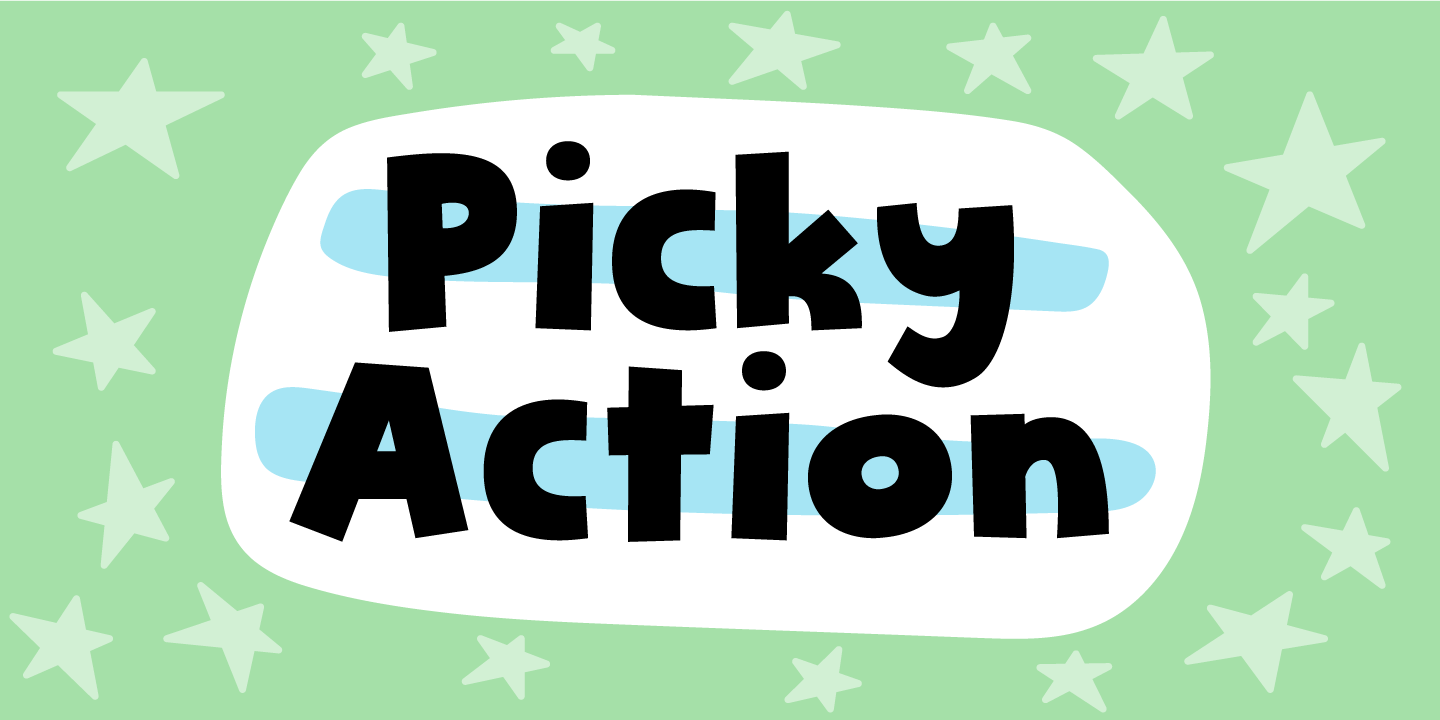
Picky Action Font is perfect for action movie titles, sports team branding, gaming graphics, comic book covers, extreme sports marketing, adventure tourism promotions, fitness brand identities, dynamic poster designs, competitive event materials, and high-energy advertising campaigns. This powerful typeface excels in applications where speed, intensity, and adrenaline-fueled action need to be communicated with bold impact and unstoppable momentum that captures attention instantly.
What makes Picky Action Font exciting is its remarkable ability to convey explosive energy and dynamic movement through its aggressive letterforms that seem to leap off the page with kinetic force. The font embodies the spirit of action-packed adventures and competitive determination with its sharp angles and powerful construction that radiates confidence and unstoppable drive. Its meticulously crafted character details and high-impact proportions create an atmosphere of intense excitement that resonates with audiences seeking thrilling experiences and peak performance challenges.
The Picky Action Font family typically includes Regular, Bold, and Black weights, each maintaining the signature aggressive energy and dynamic characteristics. Some versions offer Italic variants with enhanced motion effects and condensed styles that amplify the speed aesthetic. The family may also include outline treatments, shadow effects, and special distressed versions that enhance the action-packed appeal for maximum visual impact in sports and entertainment applications.
Whether you're creating high-octane brand identities, action-packed entertainment materials, or competitive sports graphics, Picky Action Font Free Download delivers the explosive energy your dynamic projects demand. Its aggressive character and powerful styling make it an invaluable tool for designers working in sports, gaming, and action entertainment sectors where authentic intensity and competitive spirit are essential for connecting with adrenaline-seeking audiences and performance-driven communities.